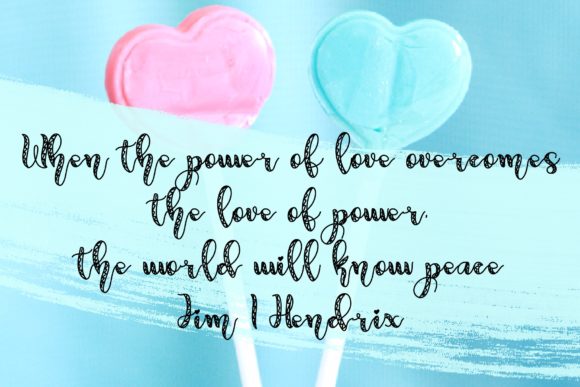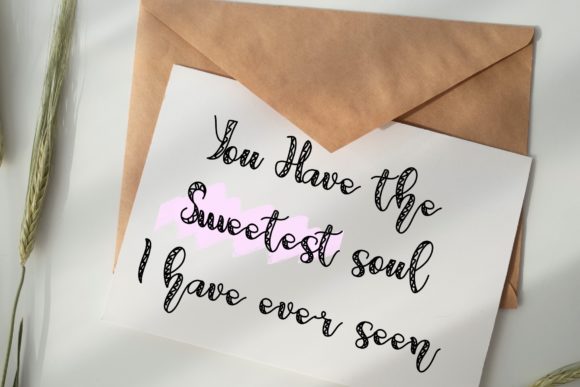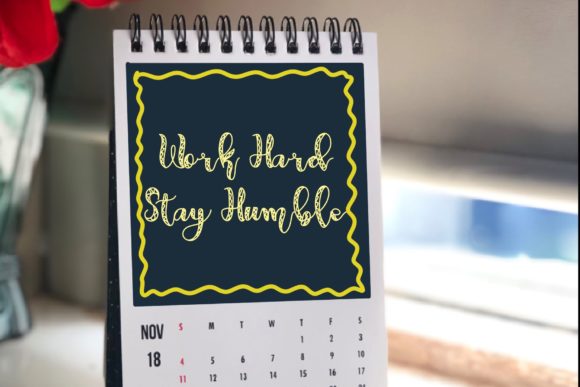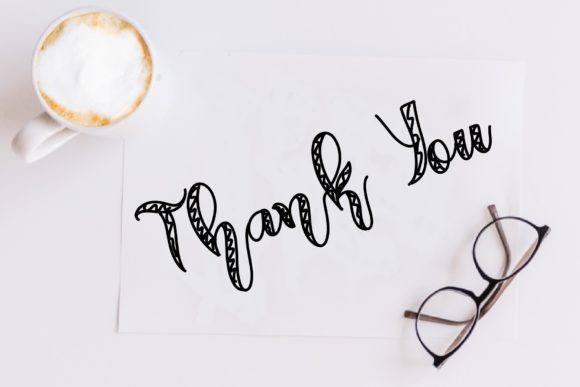
Introduction to Highly Motivated Font Font
Fonts play a crucial role in design, and the Highly Motivated Font font is a typeface that brings both character and versatility to any project. Whether you’re working on a branding project, a website, or a print design, the Highly Motivated Font font offers a unique style that can elevate your work.
Highly Motivated is a sweet and original handwritten font.
Flowing and neat lettered, this font is the best choice for whichever design idea you can think of Let your imagination run free.
Key Features of Highly Motivated Font Font
Why Choose Highly Motivated Font Font?
The Highly Motivated Font font is more than just a typeface – it’s a design tool that helps you communicate your message with style and clarity. Its unique character set and versatile design make it suitable for a wide range of applications, from elegant invitations to bold headlines.
With its carefully crafted letterforms and balanced proportions, the Highly Motivated Font font ensures readability and visual appeal across all mediums.
What makes Highly Motivated Font font special?
The Highly Motivated Font font stands out with its unique design, exceptional readability, and versatility across various design applications.